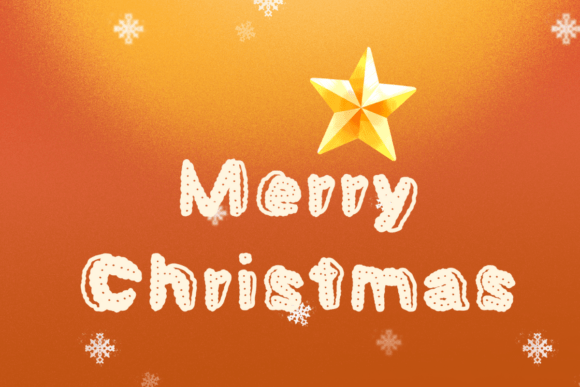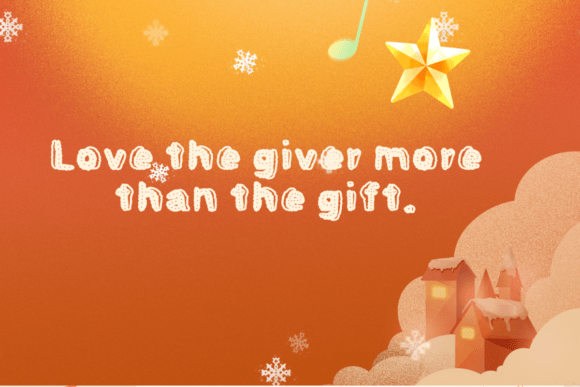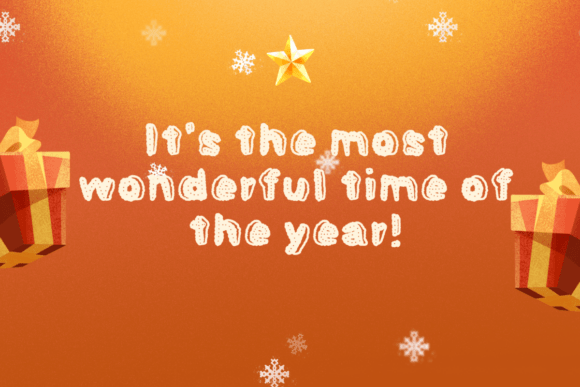
Ginger Bread Font: Add a Pinch of Whimsy to Your Designs
Ginger Bread is a fun and quirky display font that’s sure to add a pinch of whimsy to your creative projects. This delightful font is perfect for designers and crafters looking to inject a dose of playfulness into their work. In this article, we’ll take a closer look at the Ginger Bread font, its features, and how you can use it to elevate your designs.
The Charm of Ginger Bread Font
Ginger Bread font is a display font that’s inspired by the classic holiday treat. Its unique and quirky design makes it perfect for adding a touch of personality to your projects. The font features bold, rounded letters with a hint of sweetness, making it ideal for use in titles, headings, and other display text.
Key Features of Ginger Bread Font
- Unique and Quirky Design: The Ginger Bread font boasts a one-of-a-kind design that’s sure to grab attention.
- Bold and Rounded Letters: The font features bold, rounded letters that are perfect for use in titles and headings.
- Playful and Whimsical: The Ginger Bread font has a playful and whimsical feel that’s perfect for adding a touch of personality to your designs.
- Easy to Read: Despite its bold and quirky design, the Ginger Bread font is easy to read, making it perfect for use in a variety of applications.
Uses for Ginger Bread Font
The Ginger Bread font is versatile and can be used in a variety of applications, including:
- Holiday-themed Designs: The Ginger Bread font is perfect for use in holiday-themed designs, such as Christmas cards, invitations, and decorations.
- Branding and Packaging: The font’s unique and quirky design makes it perfect for use in branding and packaging applications, such as logos, labels, and product packaging.
- Signage and Displays: The Ginger Bread font is ideal for use in signage and displays, such as store signs, banners, and posters.
- Digital Designs: The font can also be used in digital designs, such as social media graphics, blog posts, and website headers.
Tips for Using Ginger Bread Font
Here are a few tips for using the Ginger Bread font in your designs:
- Use it Sparingly: The Ginger Bread font is bold and attention-grabbing, so use it sparingly to avoid overwhelming your design.
- Pair it with Other Fonts: The Ginger Bread font pairs well with other fonts, such as sans-serif fonts, to create a visually appealing contrast.
- Experiment with Colors: The Ginger Bread font looks great in a variety of colors, so experiment with different hues to find the perfect one for your design.
| Font Name | Ginger Bread Font |
In conclusion, the Ginger Bread font is a fun and quirky display font that’s perfect for adding a pinch of whimsy to your creative projects. Its unique and quirky design makes it ideal for use in a variety of applications, from holiday-themed designs to branding and packaging. With its bold and rounded letters, playful and whimsical feel, and ease of readability, the Ginger Bread font is sure to become a favorite in your design arsenal. So why not give it a try and see the results for yourself?